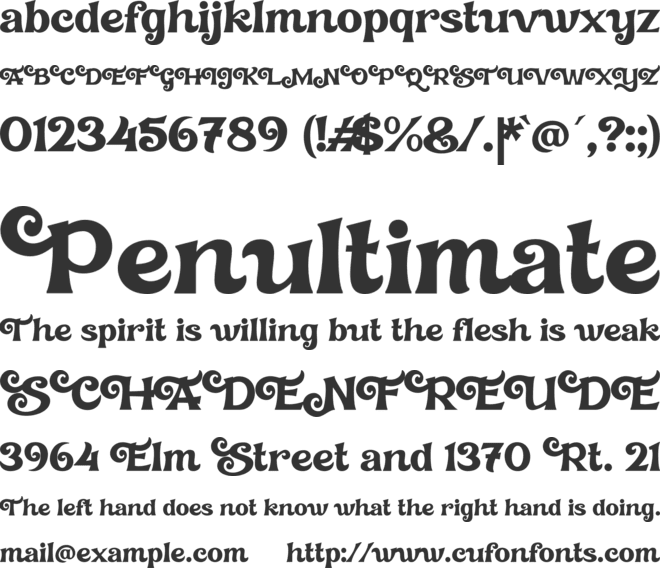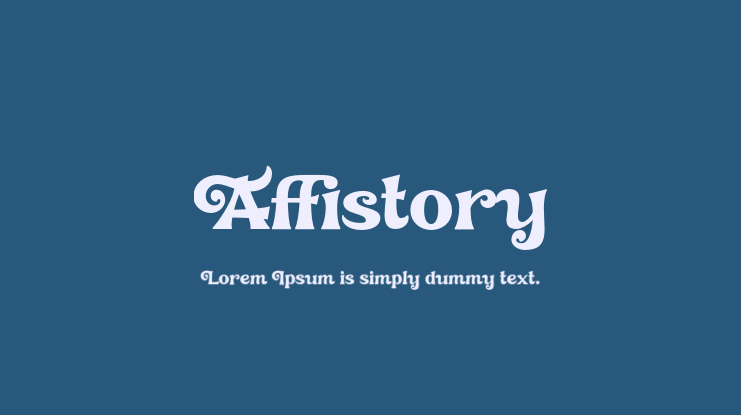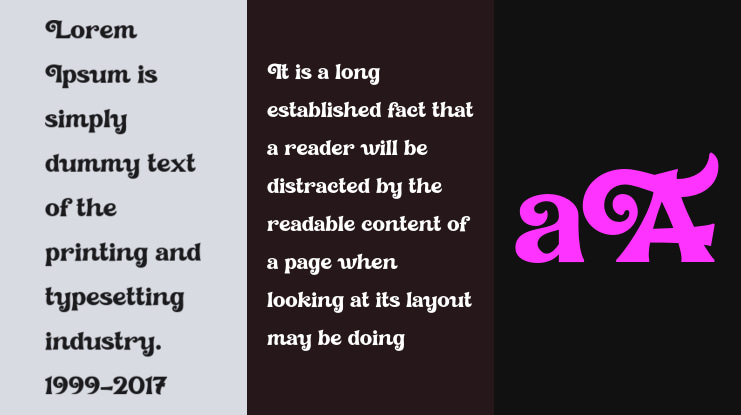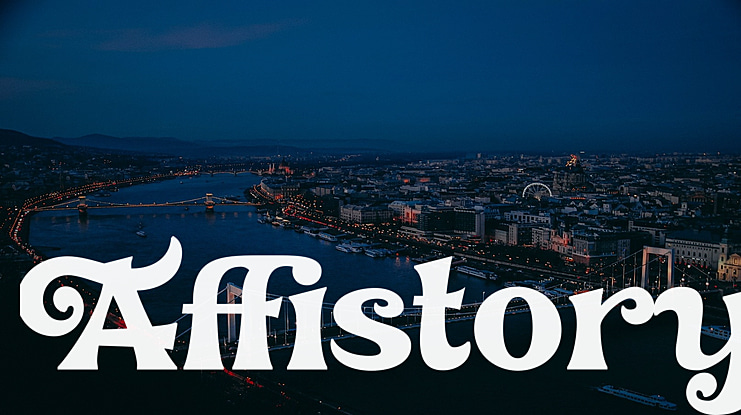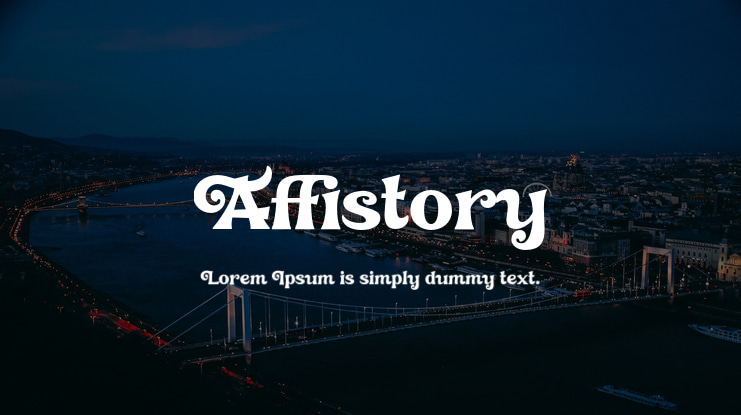
Affistory Font Family
Introducing our new release, Affistory Nature Handwritten Font. This typeset is perfect for brand logo, invitations, greeting card, or even any kind of project. With multilingual feature and style variations, this typeface would further enhance the aestethical aspect of your work.Visit our website : https://displaytypefont.com/product/affistory/